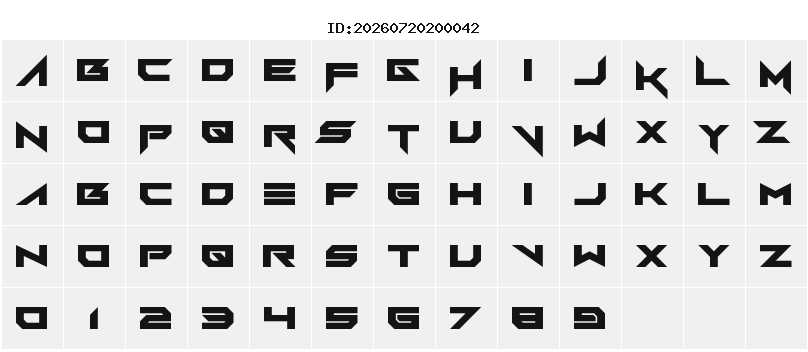
FoughtKnight Victory Preview
• Font Name: FoughtKnight Victory
• Full Font Name: FoughtKnight Victory
• Version: Version 1.00 July 21, 2013, initial release
About FoughtKnight Victory.otf
FoughtKnight Victory.otf is a modern, elegant sans-serif font designed for ultimate readability and visual harmony. Perfect for branding, headlines, web design, and print materials.